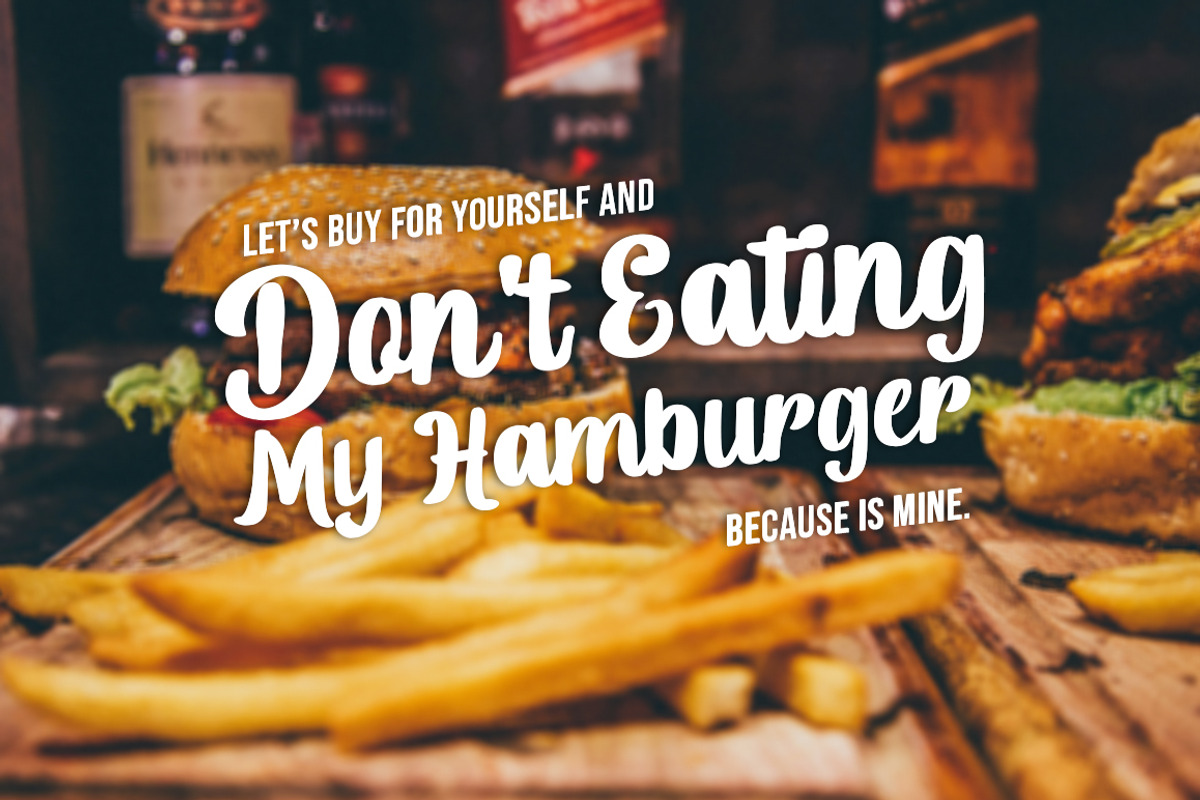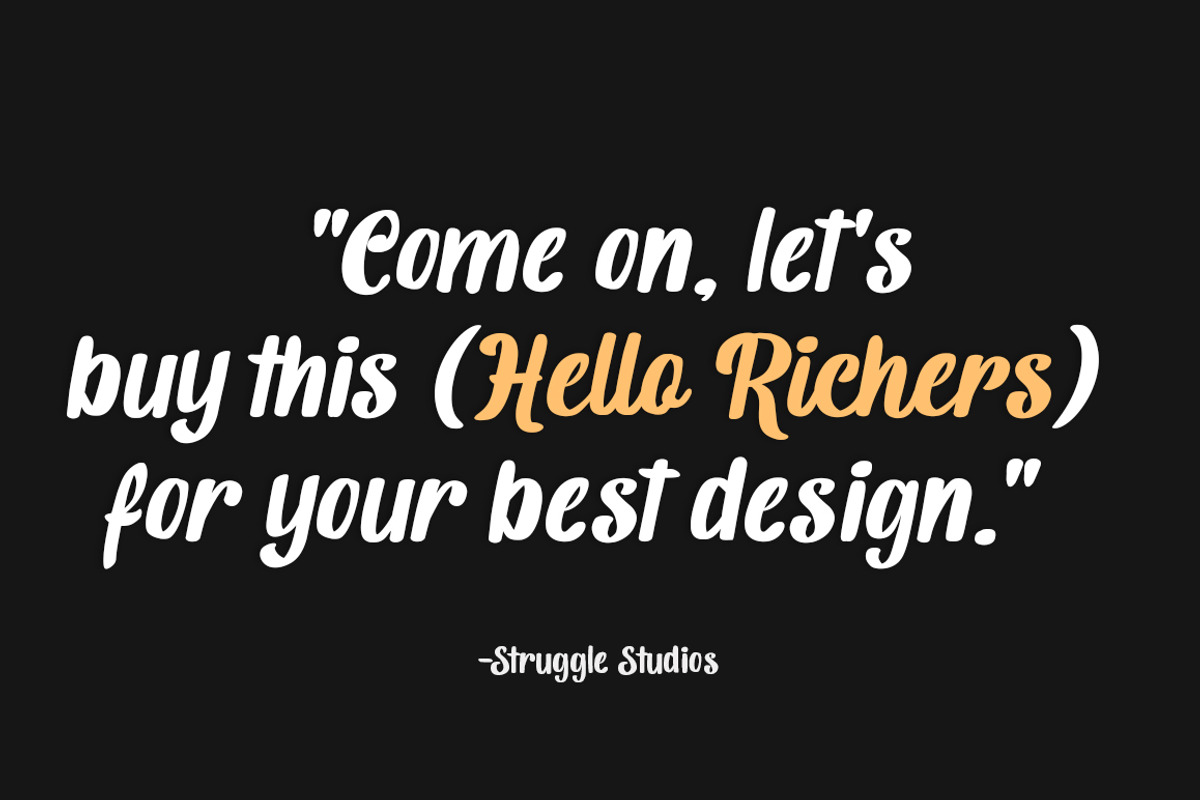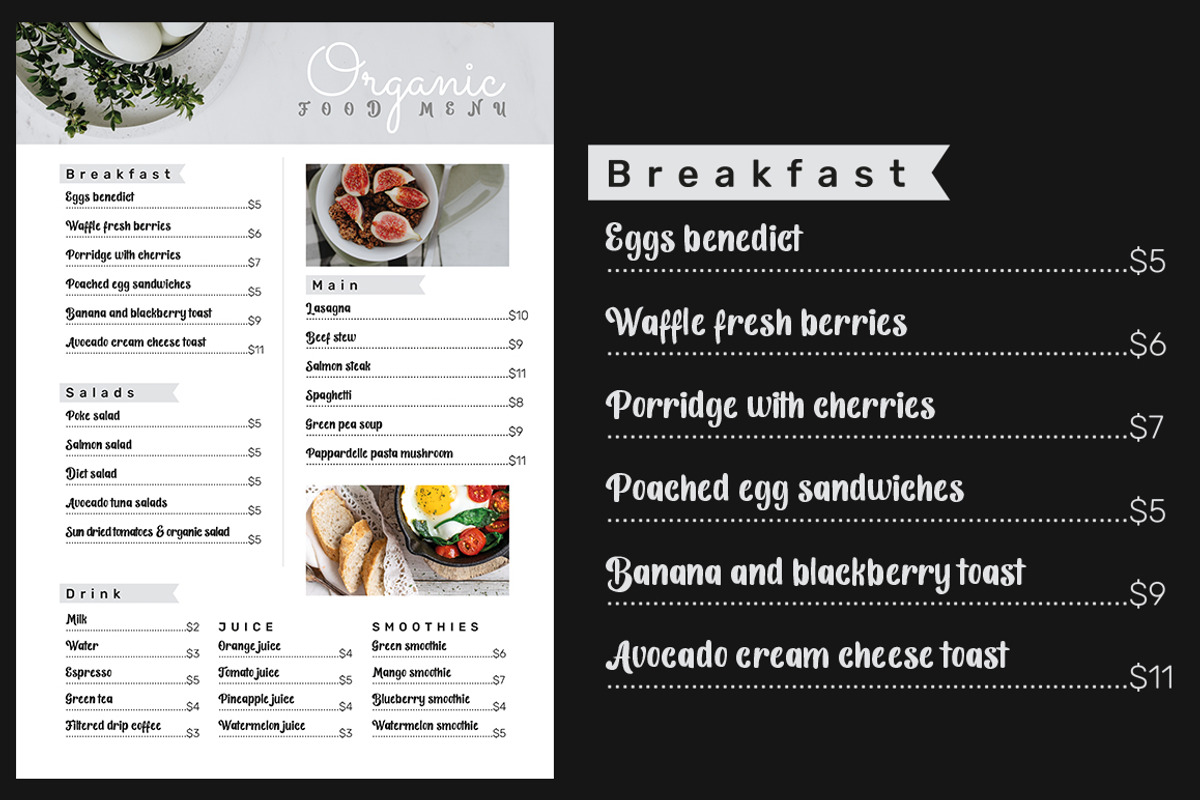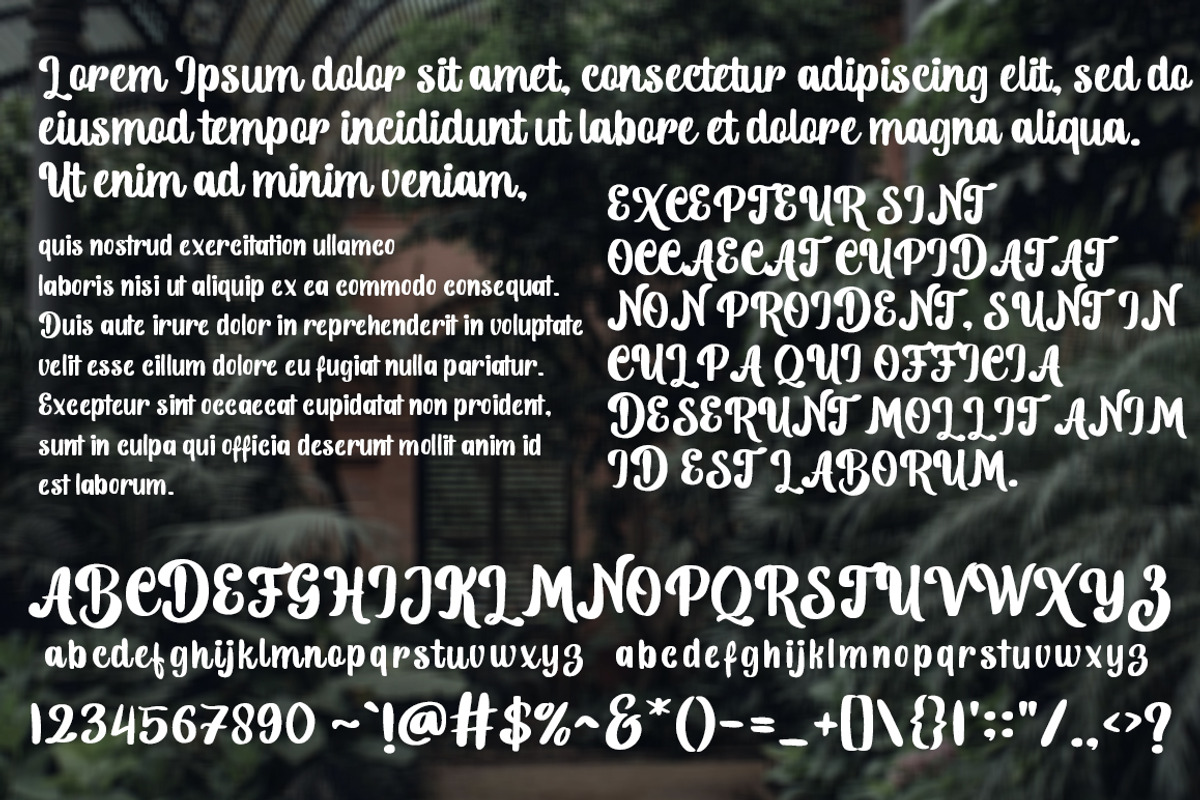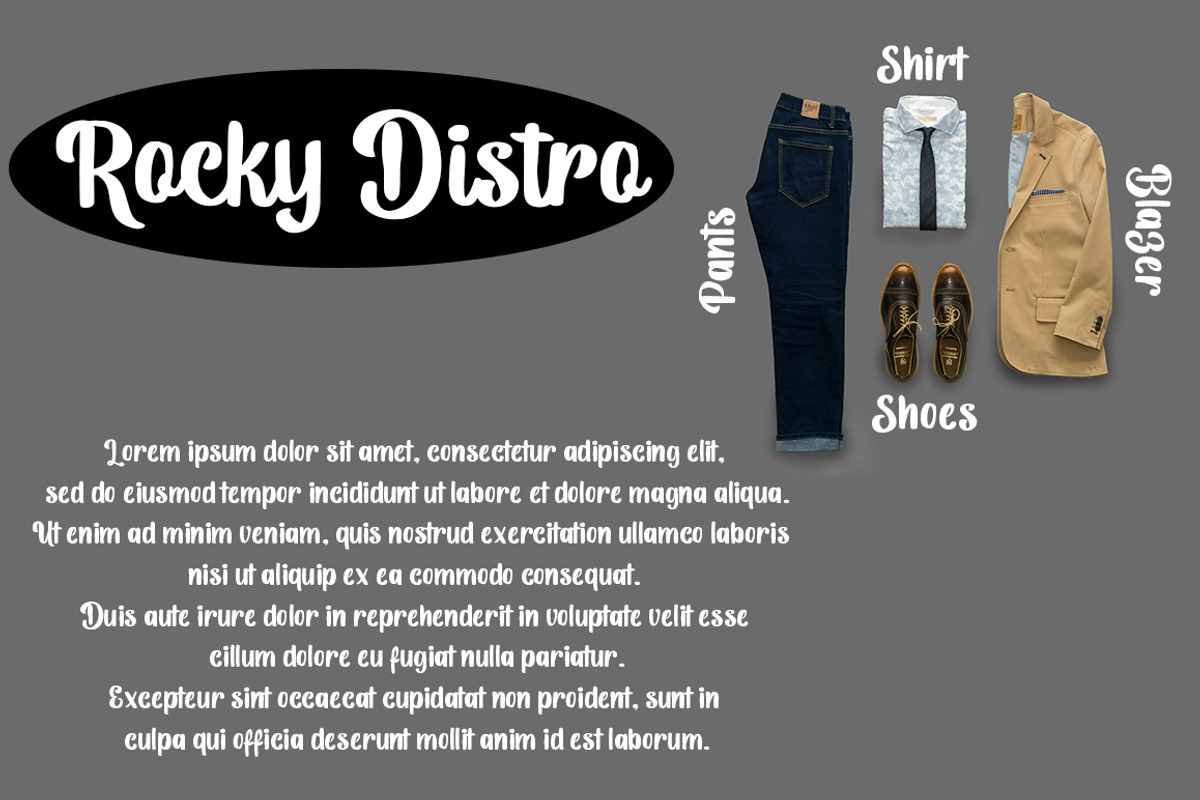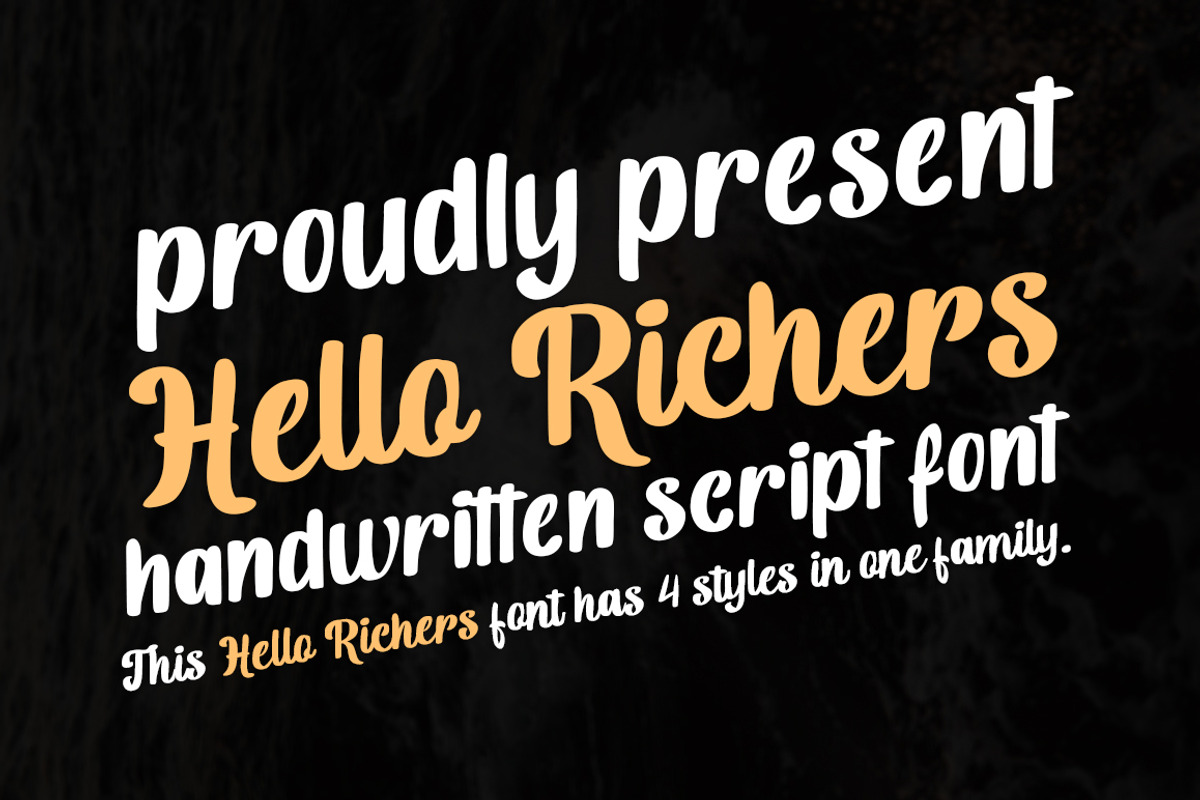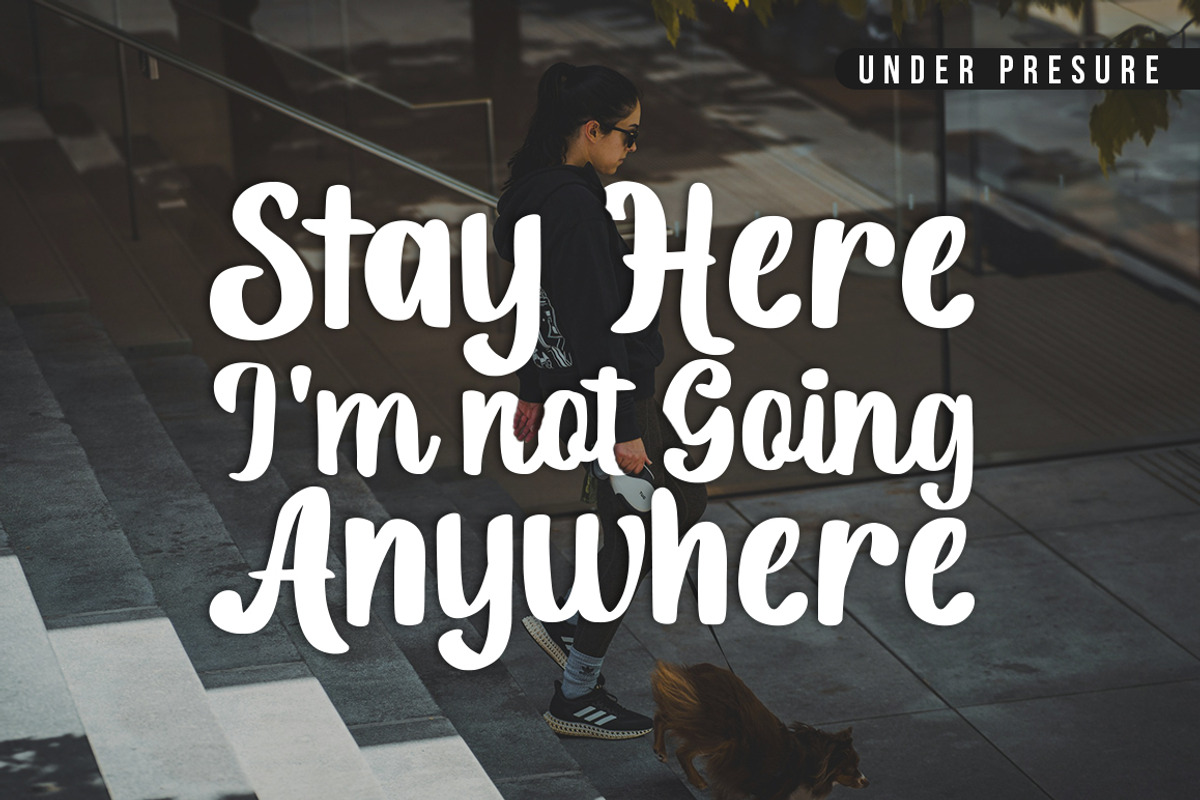
Hello Richers
Hello Richers – Handwritten Script & Display Font
Hello Richers is a versatile handwritten font family that blends a casual charm with bold display impact. Designed to be both eye-catching and easy to read, it’s perfect for branding, packaging, posters, social media graphics, and more.
This font comes with 4 distinctive styles in one family:
Script – A smooth and friendly handwritten style.
Script Slant – A dynamic, italic version for expressive designs.
Display – A bold and strong style ideal for headlines or titles.
Display Slant – A stylish slanted version of the Display style for a modern touch.
With its mix of script and display styles, Hello Richers offers creative flexibility to bring warmth, energy, and personality to your projects.